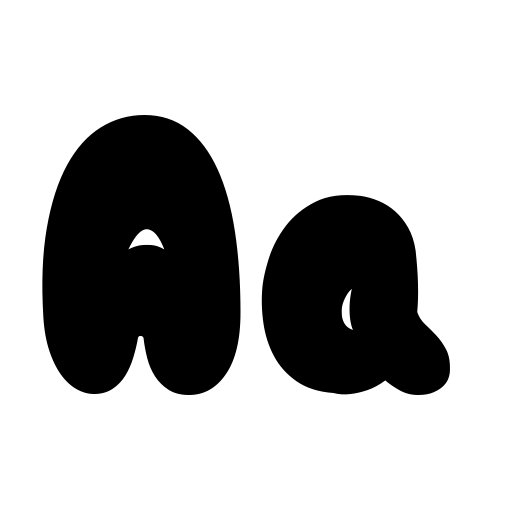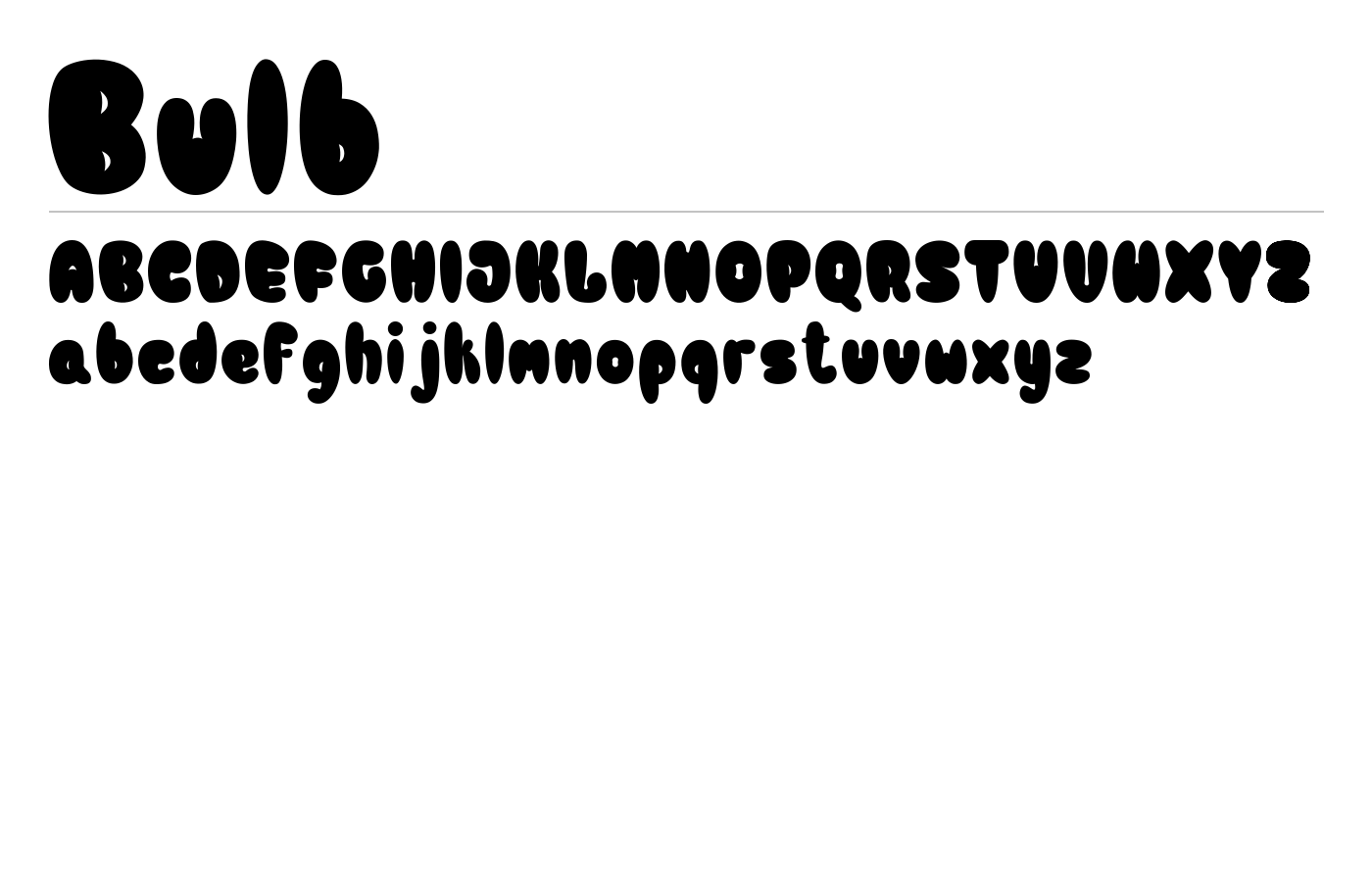
Bulb Font is a bold, rounded sans serif typeface with a playful and friendly personality. Its thick, soft shapes and generous proportions make it perfect for eye-catching headlines, children's projects, and informal branding that wants to feel warm and approachable. This font works best where a fun, chunky, and modern look is needed to grab attention with a cheerful vibe.
Bulb Font
About Bulb Font
| Font family | Bulb Font |
| Designer | Gumacreative |